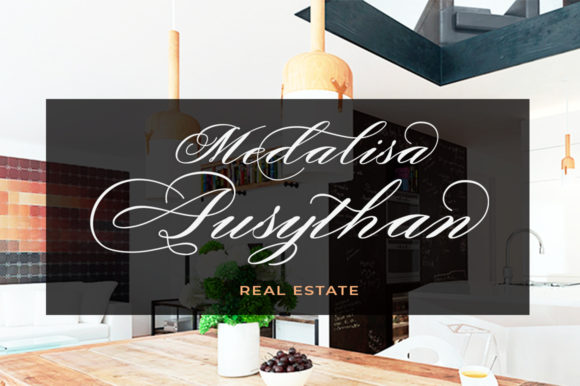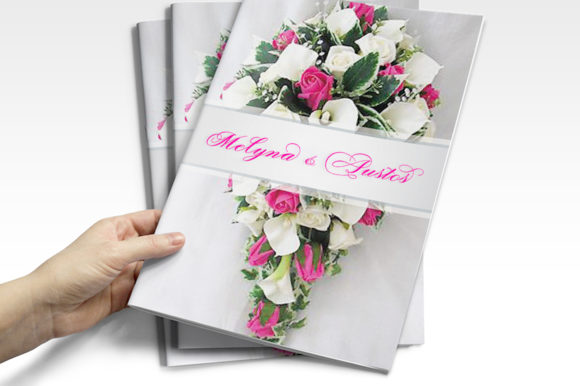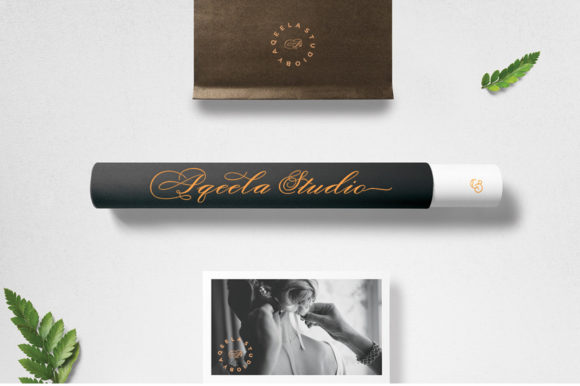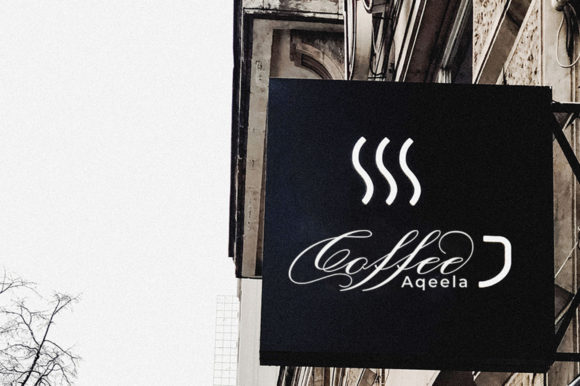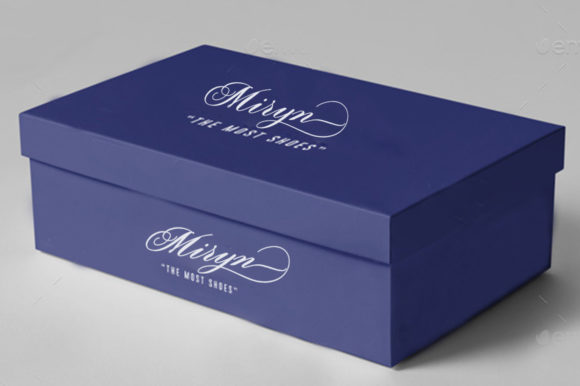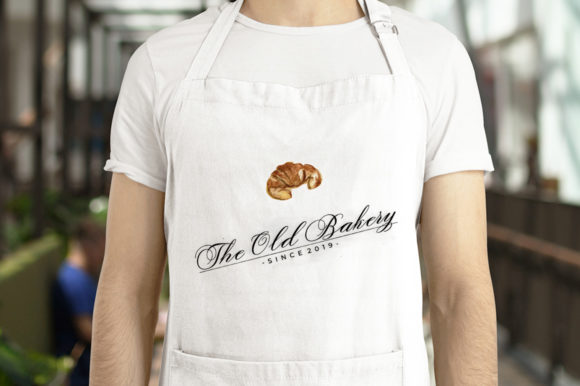
Authy Font
About Authy Font
The Authy is a lovely calligraphy font. It comes with amazing alternates and is a mixture from copperplate calligraphy with hand-lettering styles. It was designed to covey elegance and has an attractive, smooth, clean, feminine, sensual style.
It’s classic style is perfect to be applied in any type of formal pieces such invitations, labels, menus, Logos, fashion, make up, stationery, letterpress, romantic novels, magazines, books, greeting / wedding cards, packaging, labels, and much more!